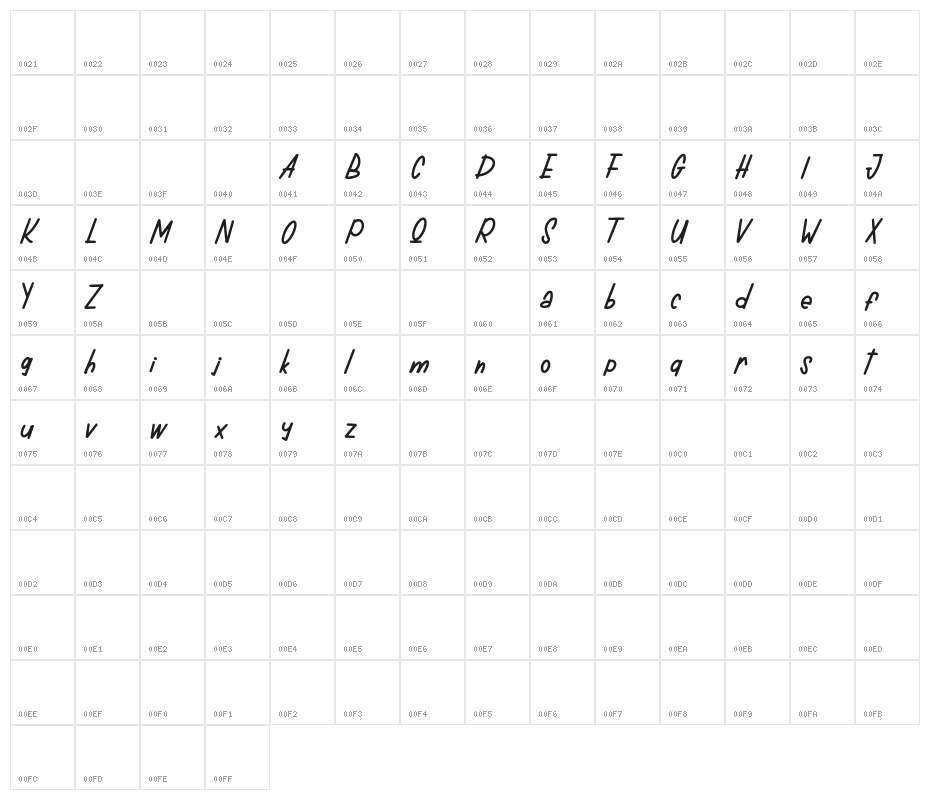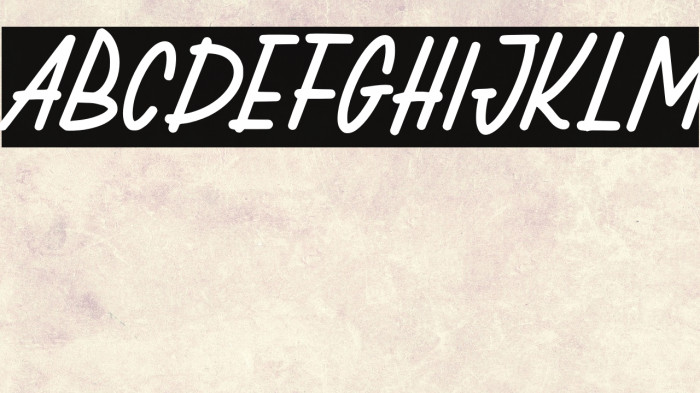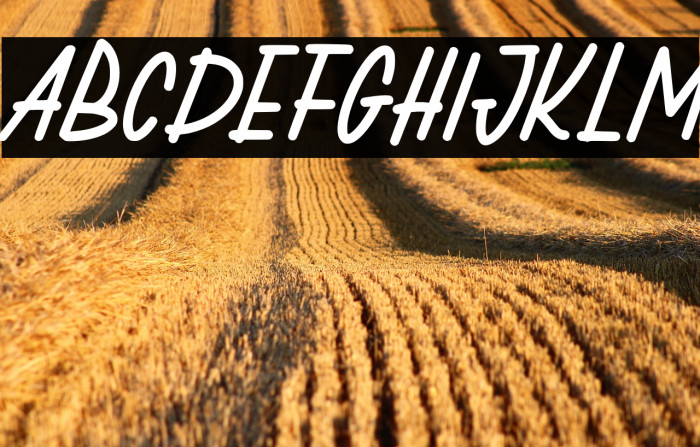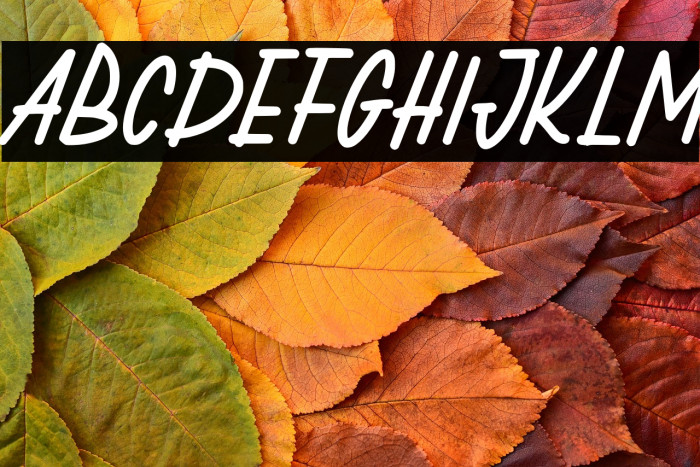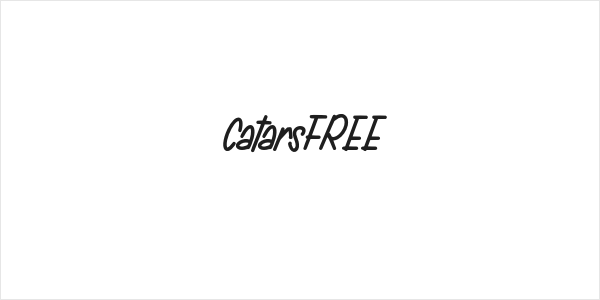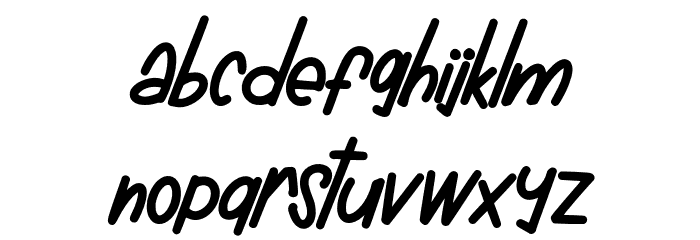
CatarsFREE Font
CatarsFREE Description
This font features a playful and dynamic handwritten style, characterized by its fluid and slightly slanted letterforms. The uppercase letters are bold and prominent, while the lowercase letters maintain a consistent flow with a touch of whimsy. The strokes are smooth and rounded, giving the font a friendly and approachable appearance. The overall design is casual yet stylish, making it suitable for a variety of creative projects. The spacing between characters is balanced, ensuring readability while maintaining the font's unique personality.
| Use Case | Headlines, Logos, Informal text |
| Proposed Projects | Ideal for greeting cards, playful branding, children's books, and social media graphics. |